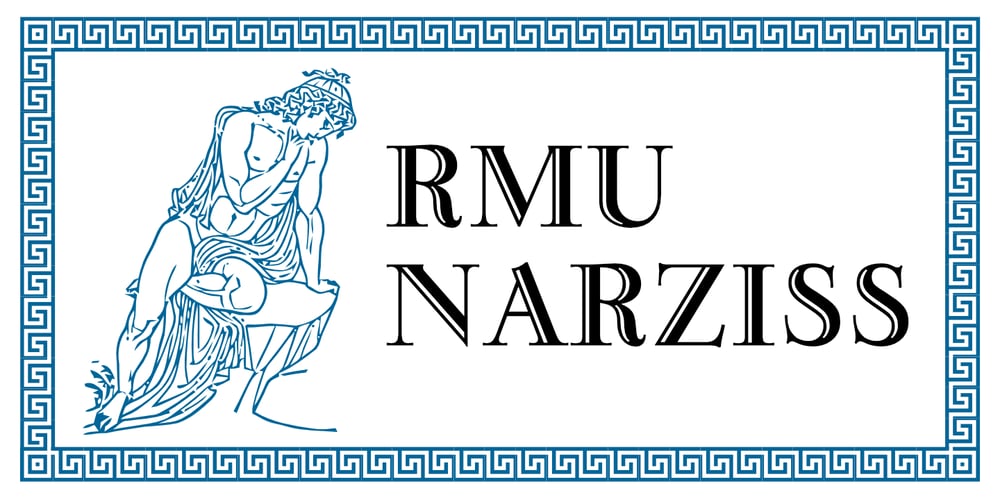
RMU Narziss
RMU Narziss font
RMU Narziss Font Family was designed by Ralph M. Unger and published by RMU. RMU Narziss contains 1 styles and family package options. In 1921 the Klingspor foundry released Walter Tiemann’s Narziss™. This beautiful and elegant font was completely redrawn and redesigned and extended to cover major European languages East and West. The font contains also a ‘long s‘ and related useful ligatures which can be reached by using the OpenType features historical letters and historical ligatures.